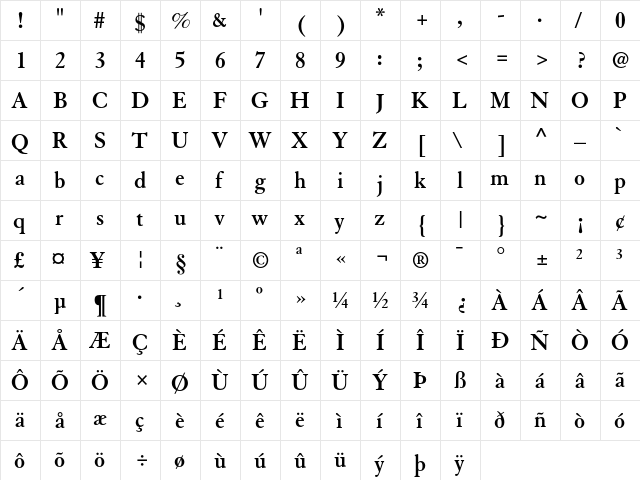
Granjon Bold Font Preview
Granjon Bold
Design Context for Granjon Typeface
Granjon offers clean, dependable letterforms without strong stylistic allegiance, making it a practical choice for designers who need flexibility. The heavy weight commands attention and anchors typographic hierarchies.
Pro Tip: Use Granjon in both headline and body roles to test its range before committing to a single application.